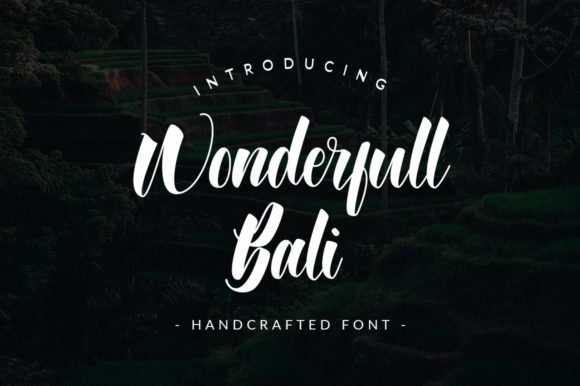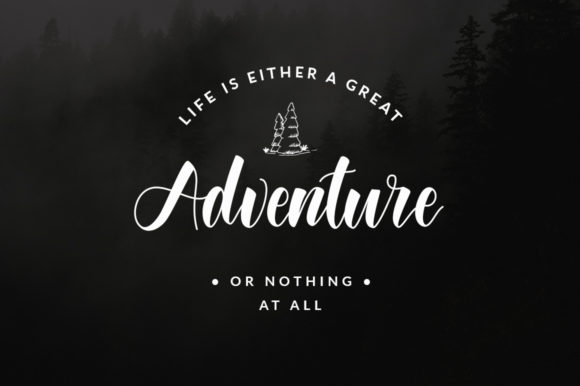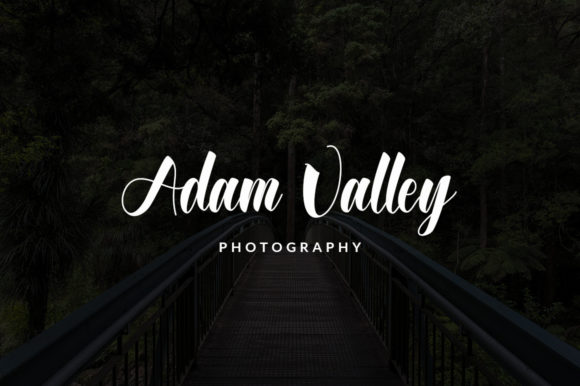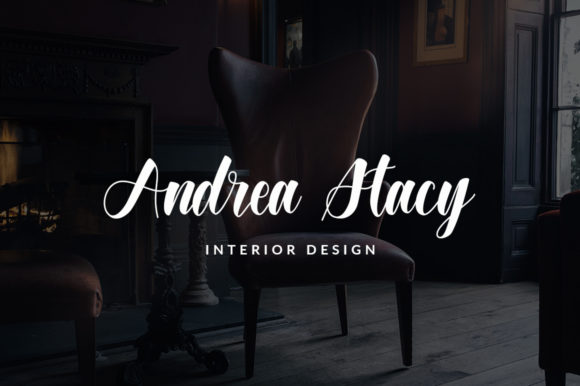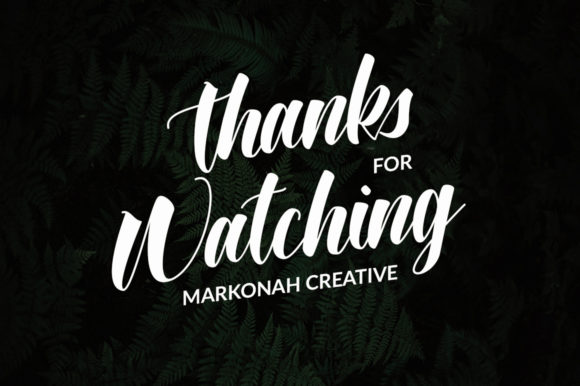
Wonderfull Bali Font
About Wonderfull Bali Font
Wonderfull Bali is a bold script font. It features an incredibly classic style, while still keeping a friendly feel. Whether you’re looking for fonts for Instagram or calligraphy scripts for DIY projects, Wonderfull Bali will turn any creative idea into a true piece of art!